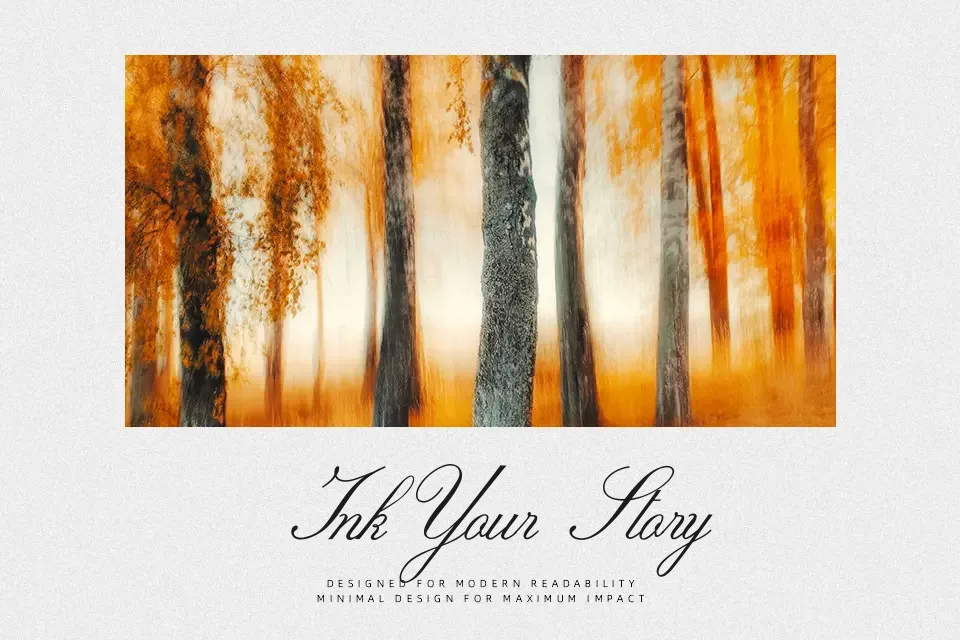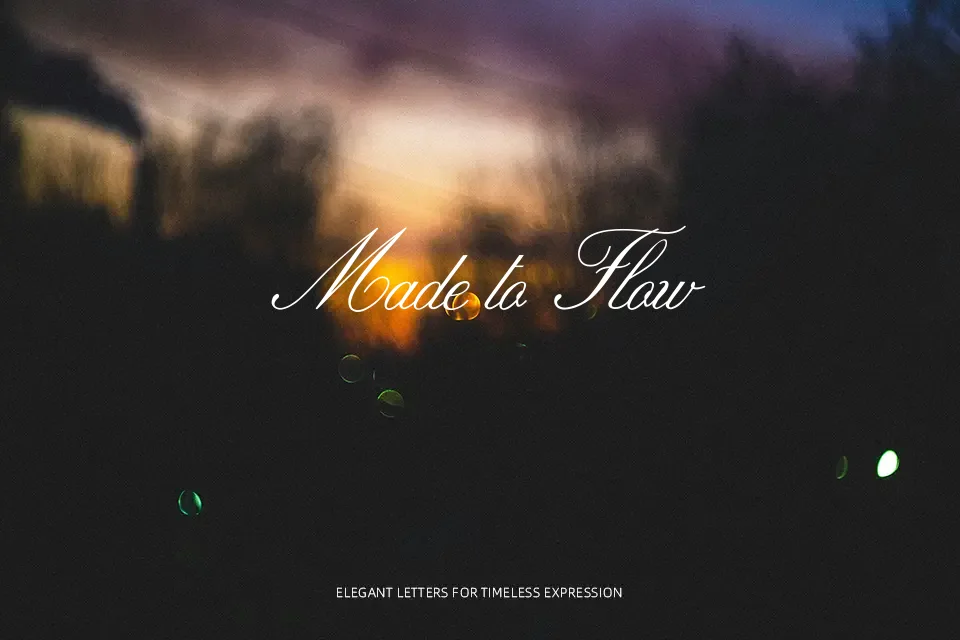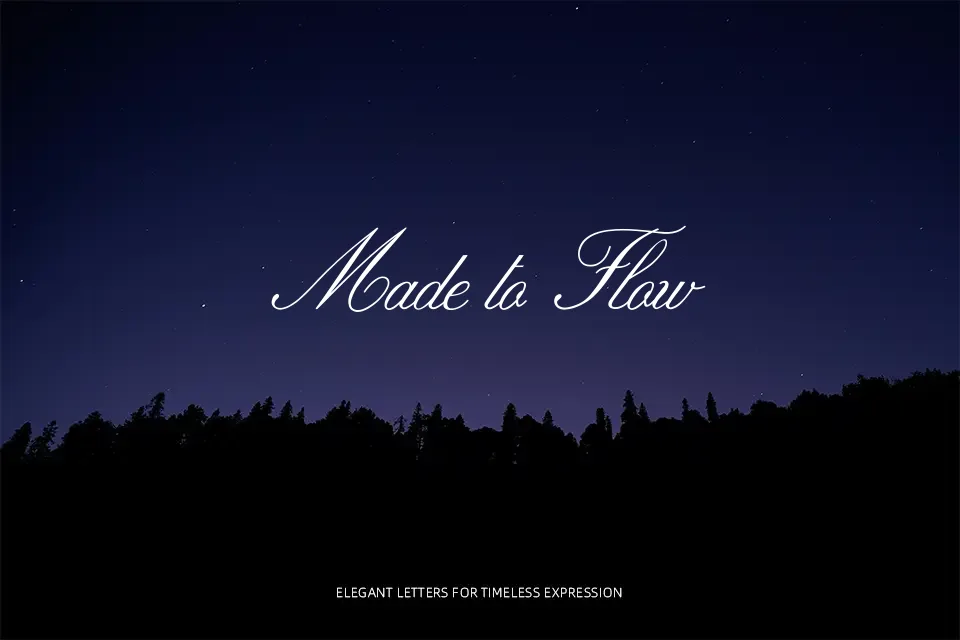
Rosemarrye Font
An elaborate structure and dramatic stroke contrast instantly define the visual presence of Rosemarrye Font in any layout. The flowing cursive letterforms exhibit varying thickness, pairing delicate hairlines with heavier, sweeping curves that create a dynamic visual rhythm. Its proportions are generous, allowing the intricate swashes to breathe without tangling. This decorative design performs best when displayed at larger sizes, making it an excellent choice for luxury packaging or premium event invitations. However, the highly stylized forms and elaborate connections become less effective at smaller scales, significantly reducing continuous reading comfort. The balanced spacing helps maintain clarity in larger headlines, ensuring the intricate details remain distinct rather than forming an unreadable block.
luxury cosmetic branding
wedding invitation headers
boutique apparel tags
Perfect for branding, invitation, and logo, with a creative and calligraphy style.